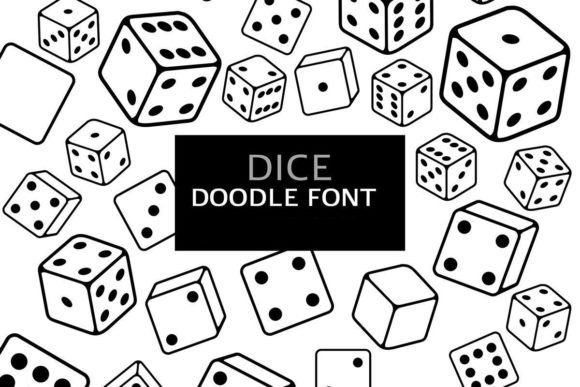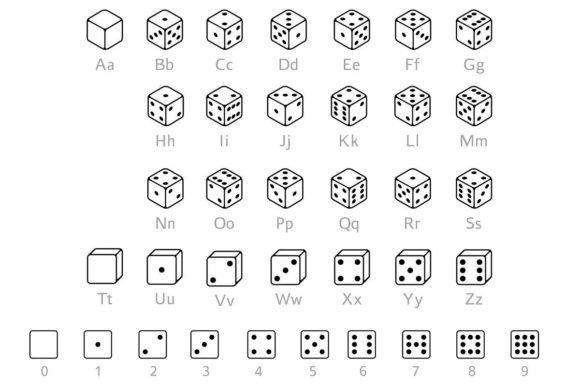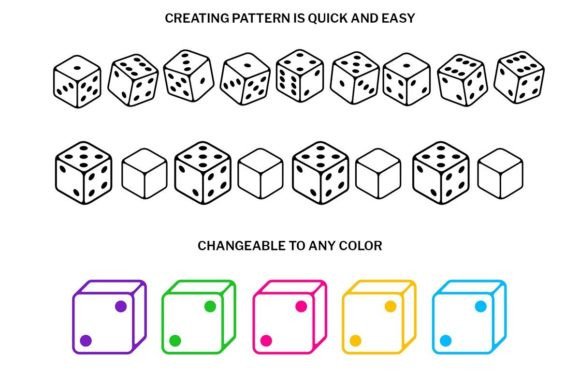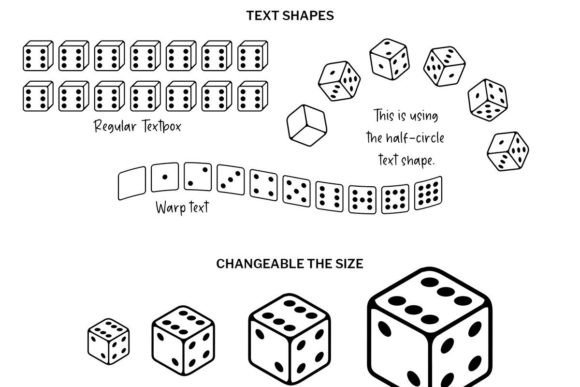
Dice Doodle Font
About the Dice Doodle Font
Elevate your designs with Dice Doodle Font, a font that combines sophistication with readability. Dice Doodle is a fun and cute dingbat font. Its versatility makes it great for a wide pool of craft projects, designs, planners, diaries, activity books, or anything that your heart desires!
Dice Doodle’s playful nature makes it ideal for children’s books, playful branding, and packaging for fun products. It works exceptionally well in headlines, short text blocks, and as an accent within larger designs. However, its informal style is unsuitable for body text or UI elements requiring high readability.
For optimal visual balance, pair Dice Doodle with a clean sans-serif like Open Sans for body text or a more structured serif like Playfair Display for a touch of elegance. Consider using a simple script font for a handwritten feel, provided it is used sparingly to avoid visual clutter.
The font’s overall personality is undeniably cheerful and light-hearted, lending itself to brands targeting a young or family-oriented demographic. Its inherent charm is best showcased in projects emphasizing fun, creativity, and approachability.
Dice Doodle Font Usage Examples
Dice Doodle Font Example